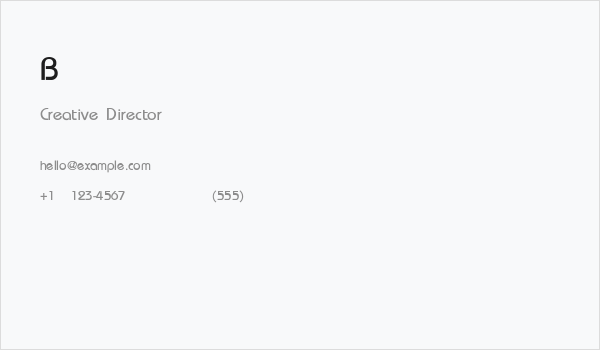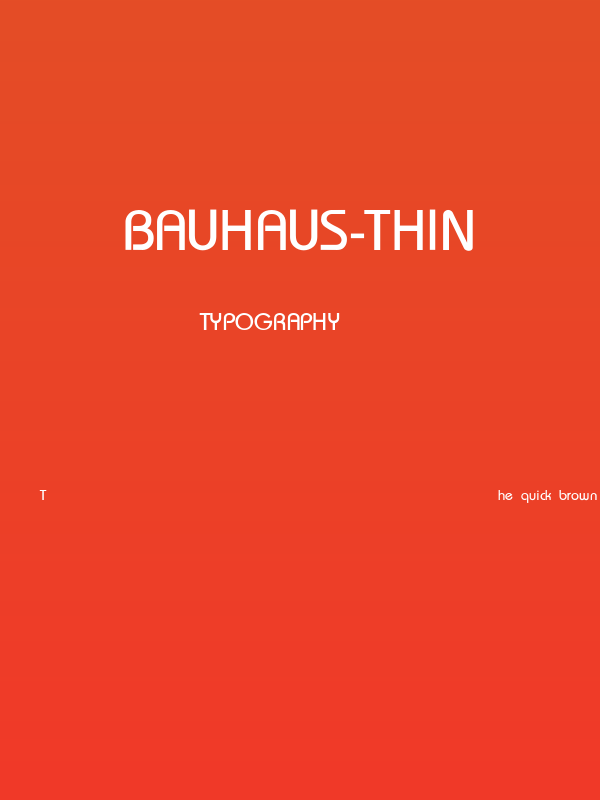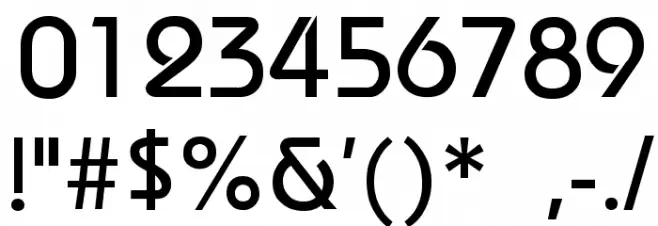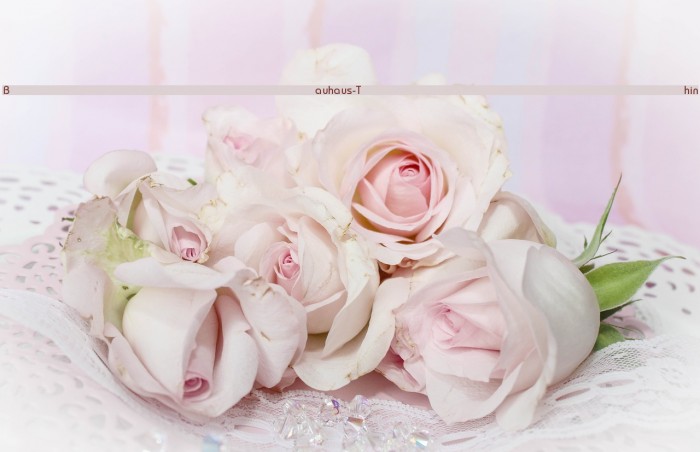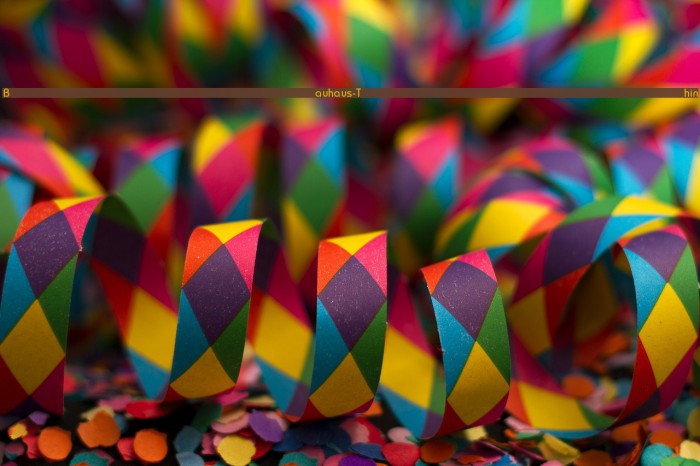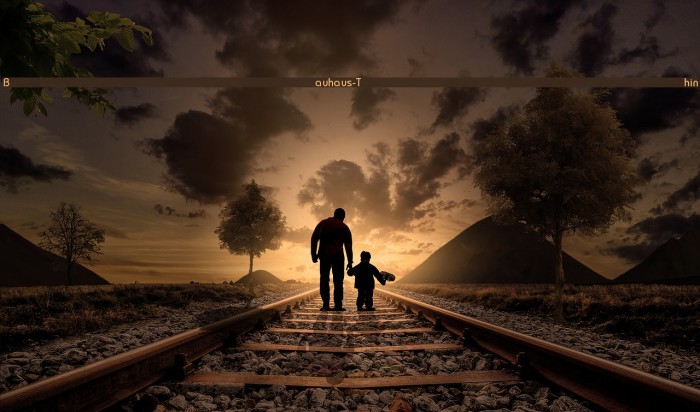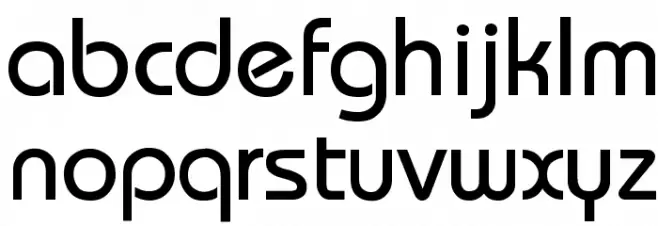
Bauhaus-Thin Font
Bauhaus-Thin Description
This font embodies a minimalist and geometric design, characterized by its clean lines and modern aesthetic. The characters are crafted with a uniform stroke width, creating a harmonious and balanced appearance. The rounded edges and absence of serifs contribute to its sleek and contemporary look. The uppercase and lowercase letters maintain a consistent style, with a focus on simplicity and clarity. The numerals and special characters are designed to complement the overall aesthetic, ensuring readability and visual appeal. This font is ideal for projects that require a modern and sophisticated touch.
| Use Case | Headlines, Logos, Branding |
| Proposed Projects | Ideal for branding, advertising, web design, and editorial layouts. |